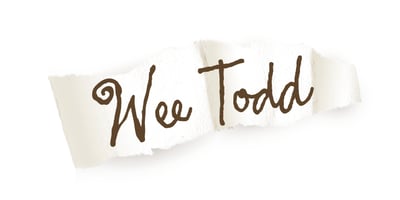
Typadelic
Typadelic, according to Ronna Penner, is “a very small foundry (just me!)”. She continues: “I offer a wide range of distinctive typefaces for Mac and PC. I really became interested in typography and letters as an art form while in college for graphic design and gained invaluable experience when I was employed as a typesetter with a greeting card company for several years. There weren’t many foundries out there offering the type of fonts we needed so I began experimenting with digital type design. I like some of my early efforts and was intrigued by the potential of designing type for commercial use.
“On a bit of a lark, I sent my first complete font, Sketchley, to Bitstream, just to see ‘what would happen’. Surprisingly, they accepted it for inclusion in their New Font Collection (2002). It also was one of the winners of ATypI’s bukva:raz! design competition, held in Moscow that same year. At this point I thought there might be a place for me in the type design community, so, I began my own company, Typadelic, in the spring of 2002.
“The question, ‘why does the world need more typefaces, don’t we have enough?’ has been asked over and over again. Yes, there are many different typefaces on the market today but I believe Typadelic delivers a fresh and unique perspective in type design, at reasonable prices to boot!”